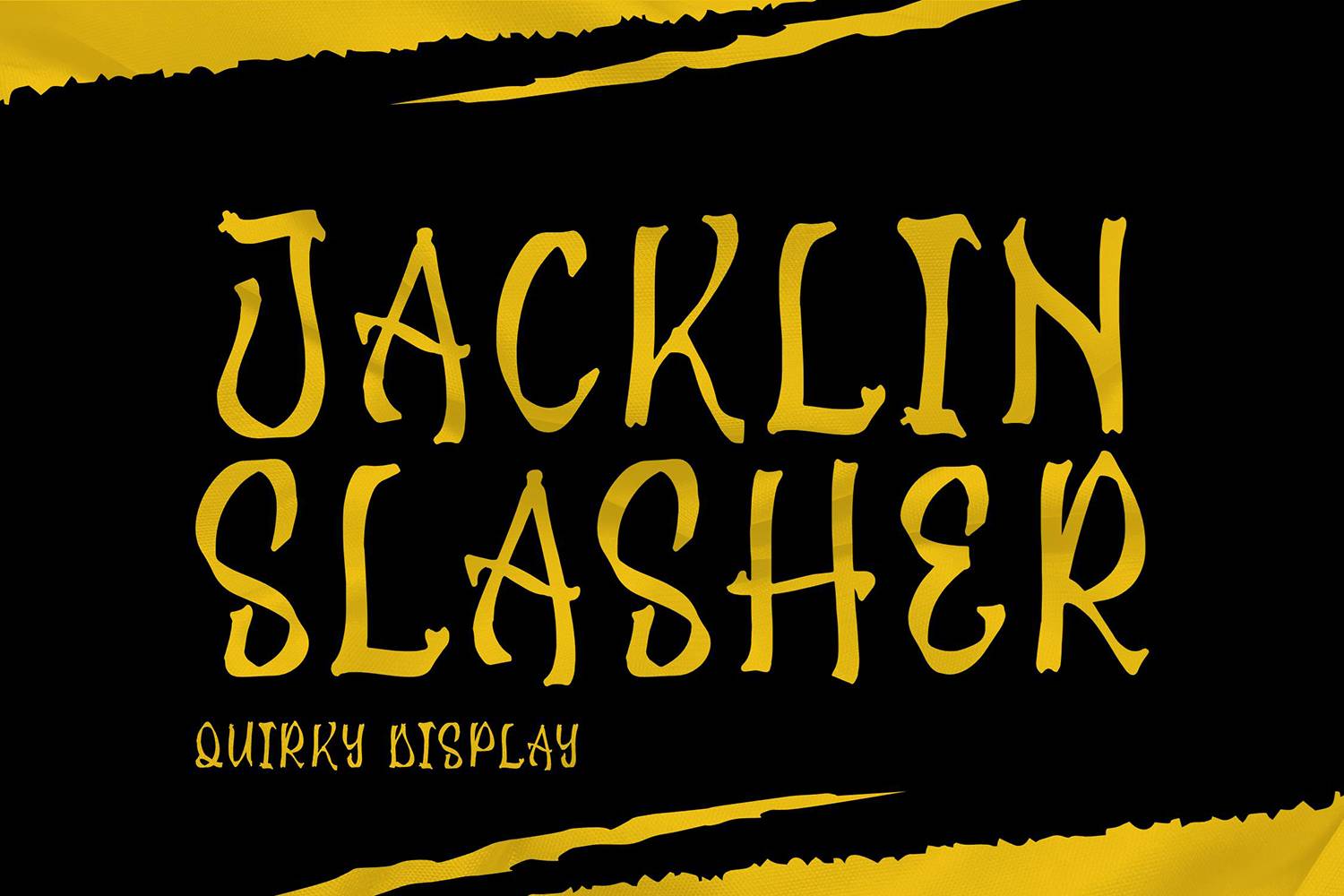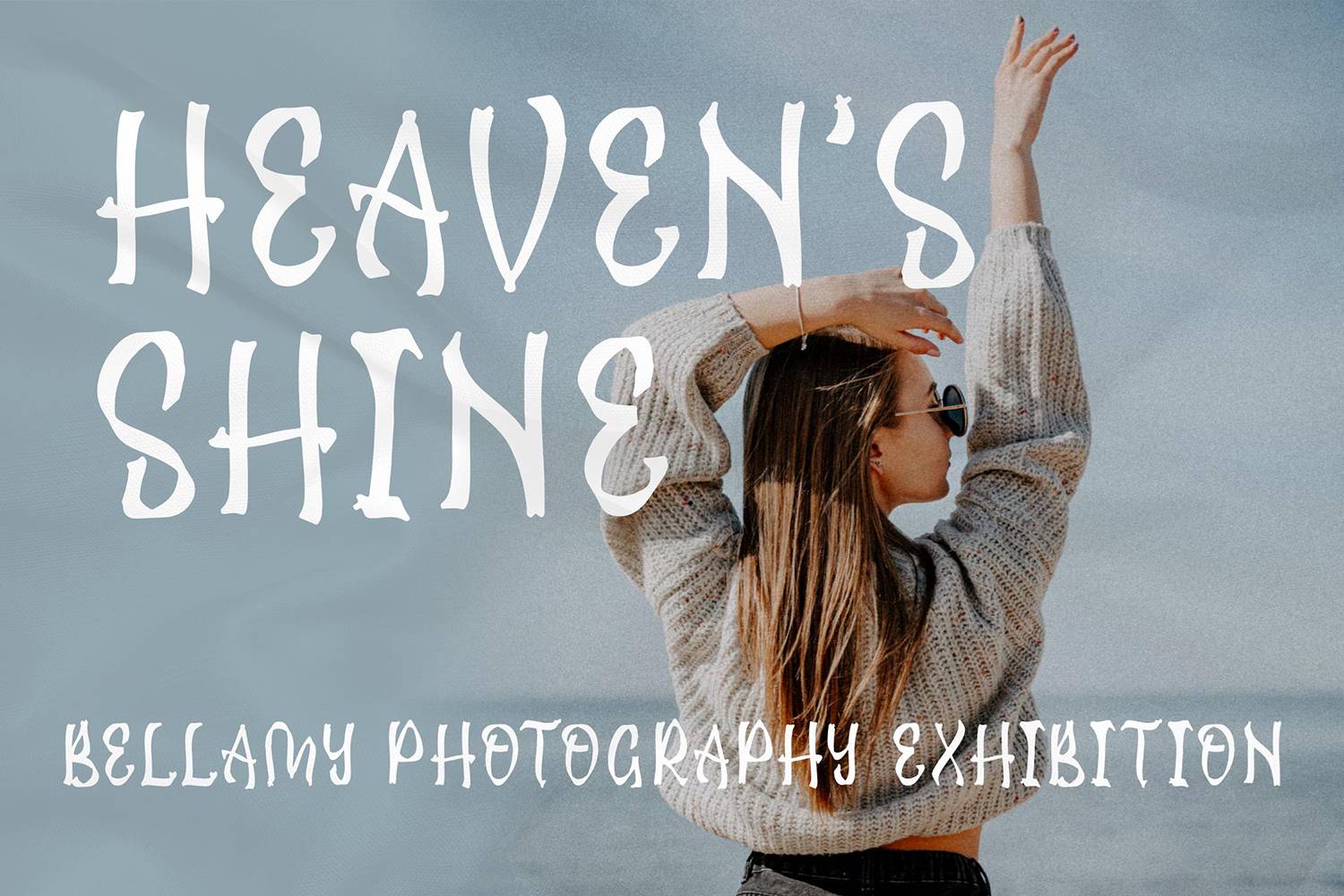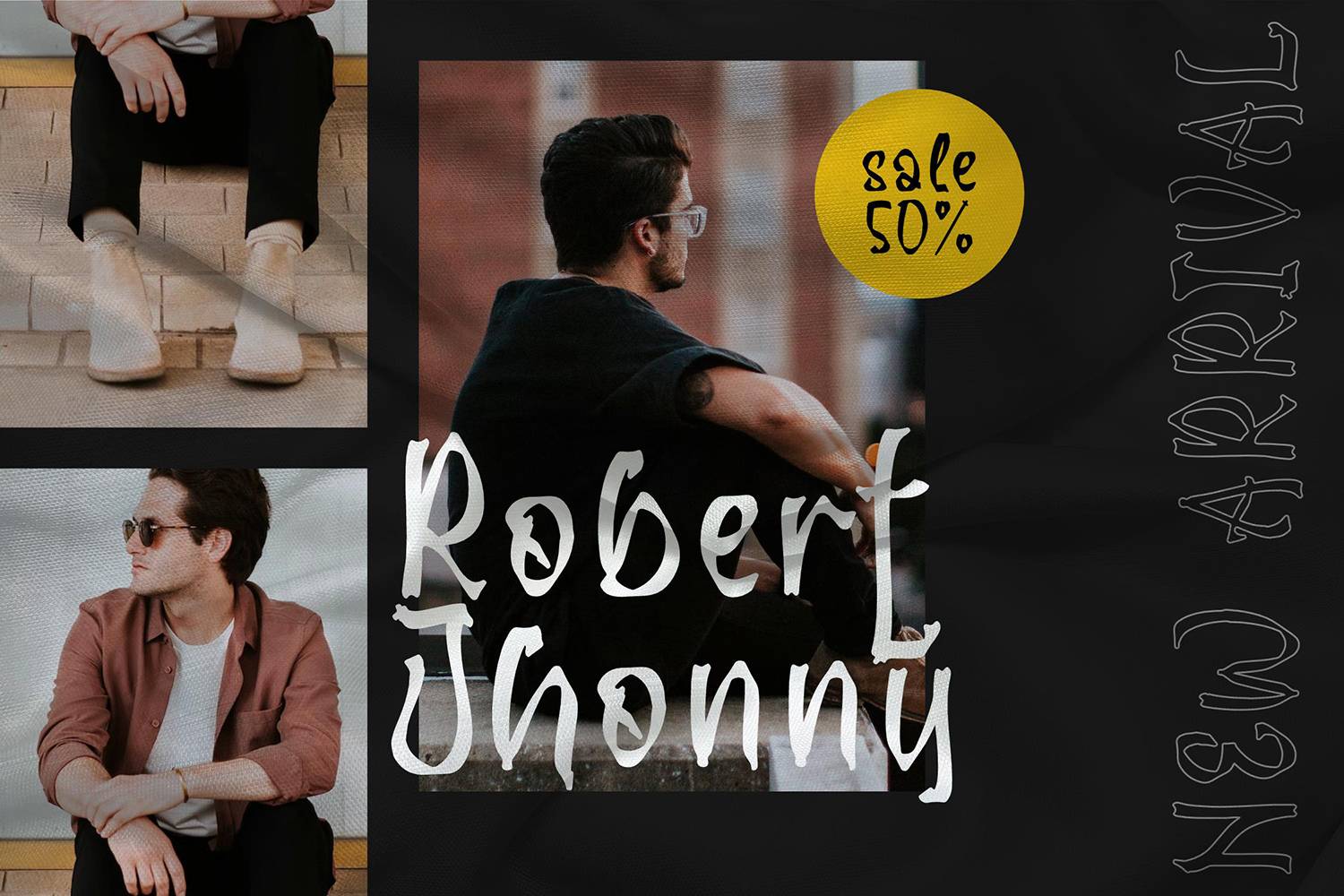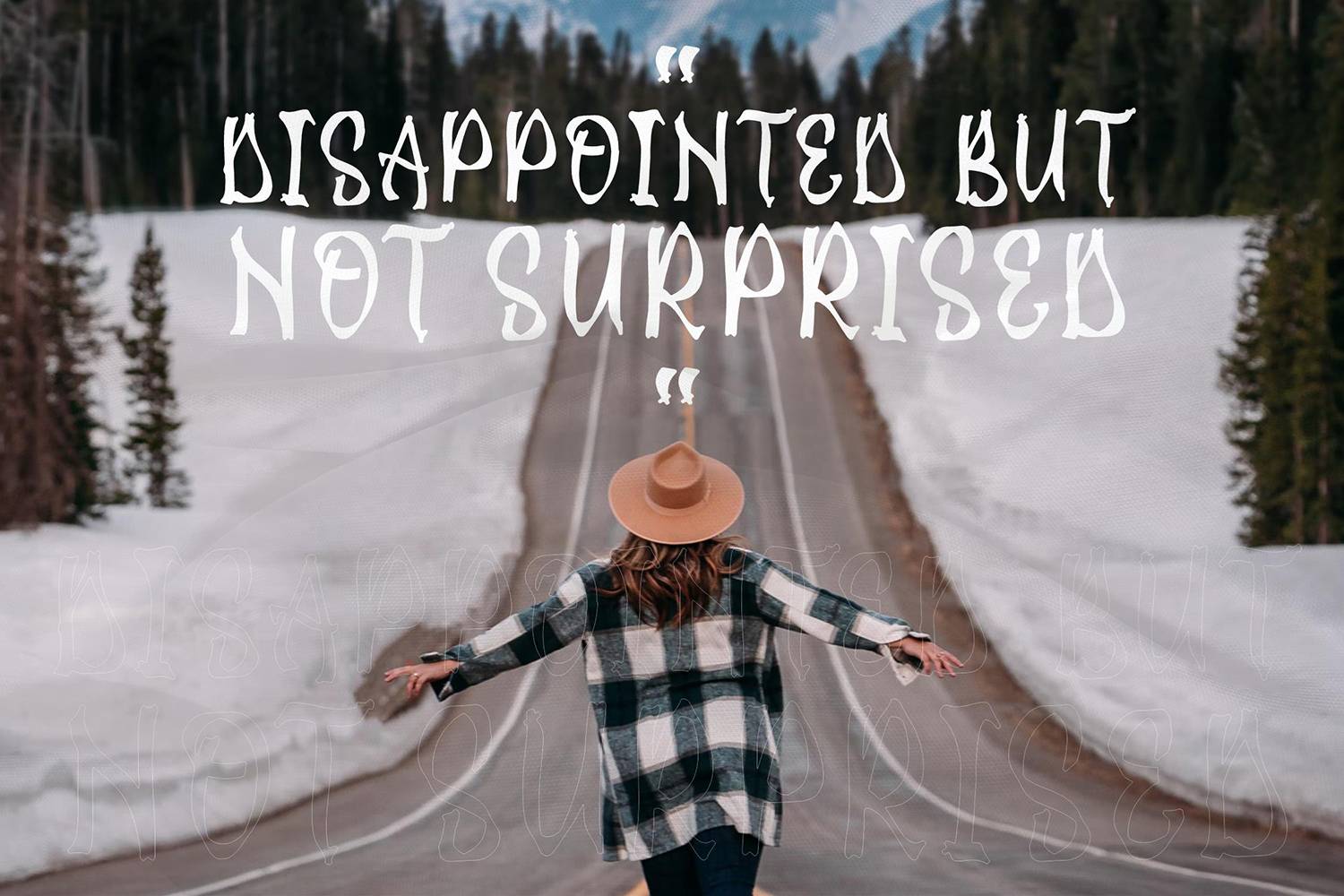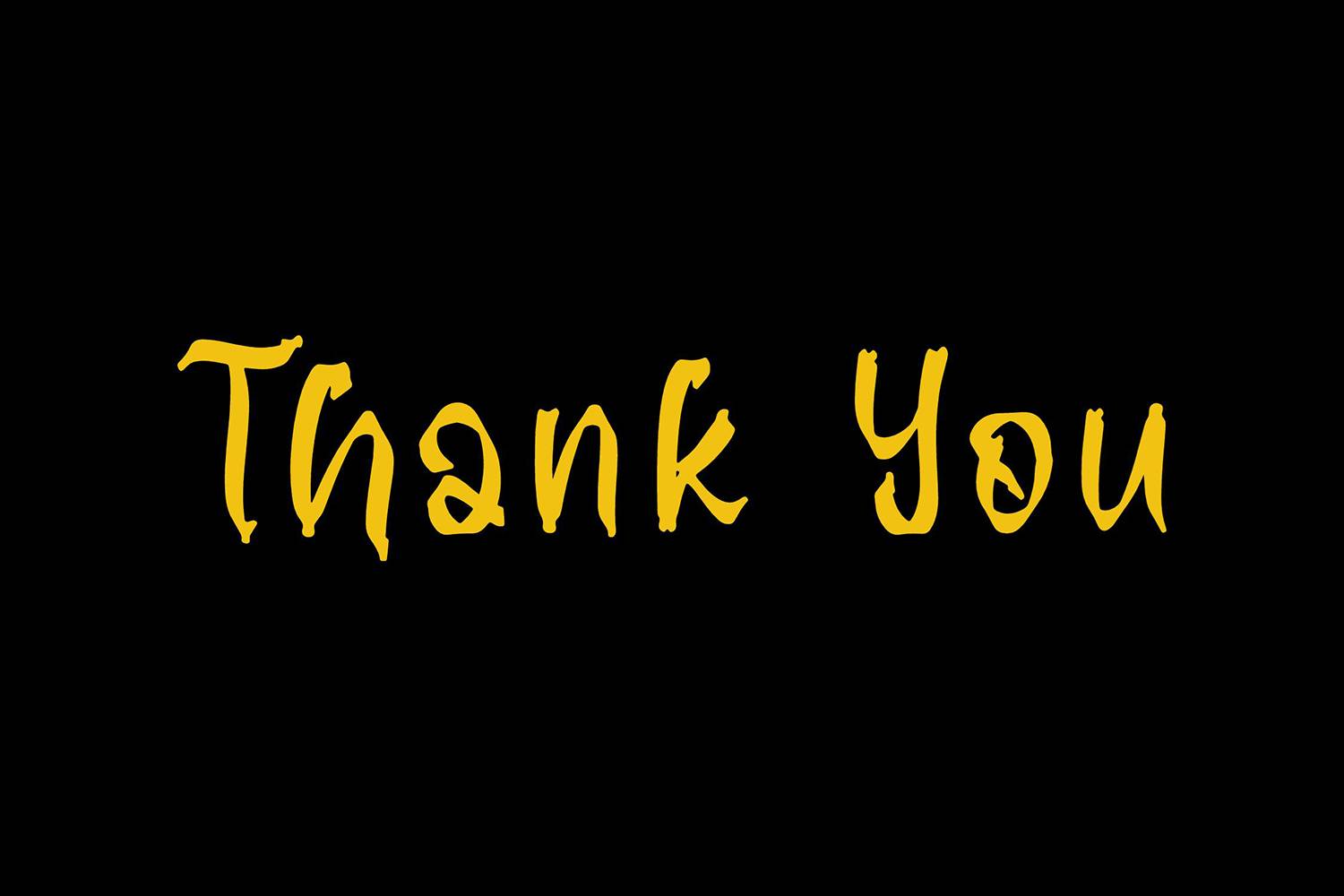
Jacklin Slasher is a unique handwritten-style font with a casual and slightly edgy feel, characterized by irregular, jagged strokes that give it a dynamic and expressive personality. Its medium weight and uneven letterforms create an organic, slightly rough texture, making it ideal for creative projects that seek a distinctive, artistic vibe. This font works well for posters, branding, and headlines that want to stand out with a bold, unconventional look.
Jacklin Slasher Font
About Jacklin Slasher Font